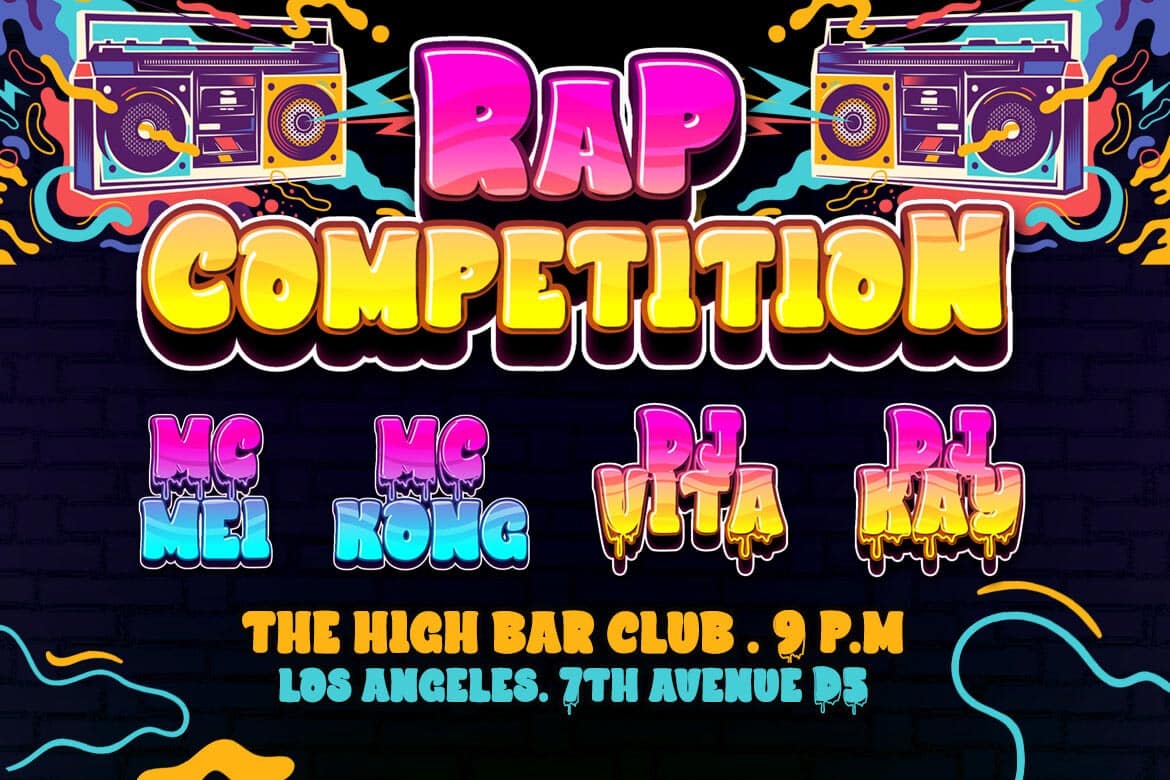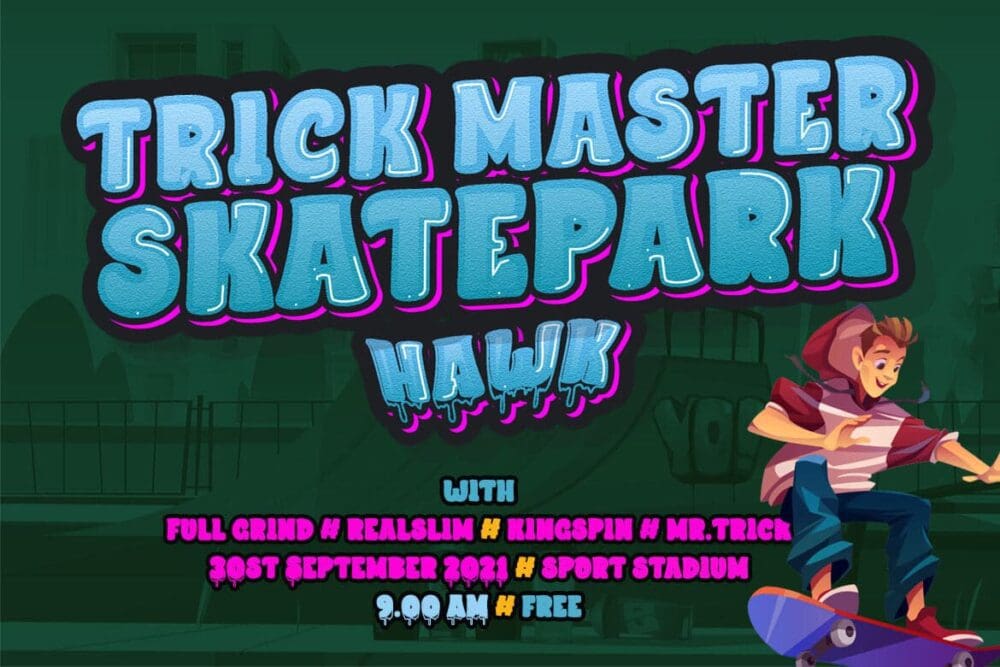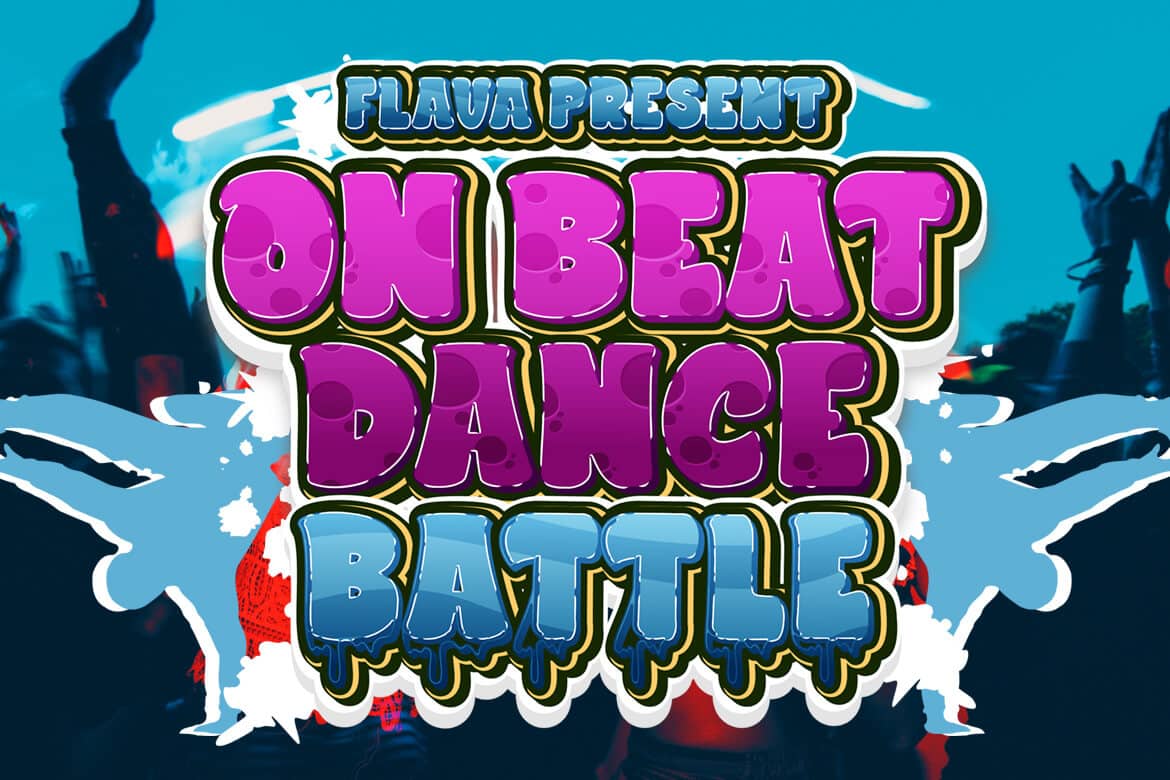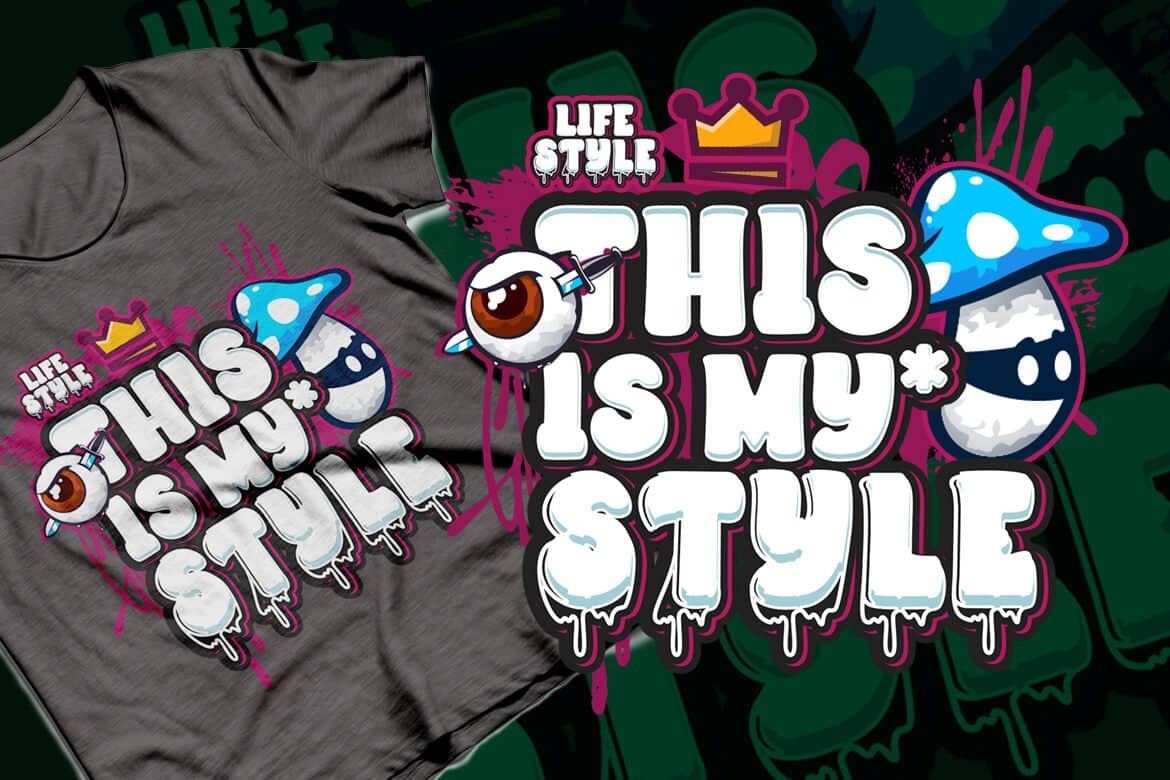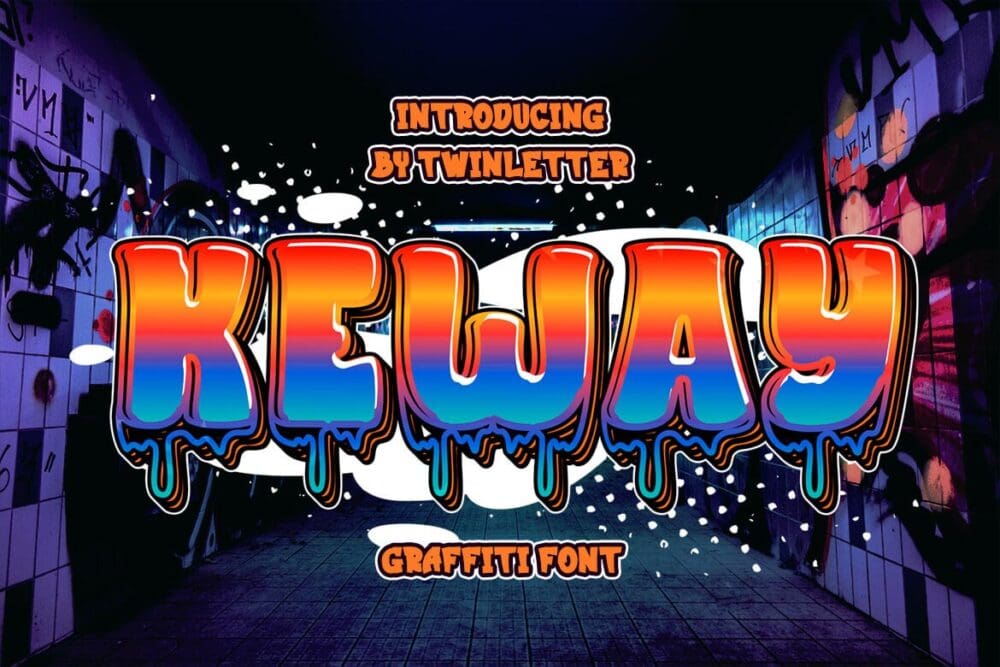
Keway Font
Keway is a graffiti font that prioritizes neatness and harmony while maintaining a distinct personality. There is an option to use capital or lowercase letters, which will make it much easier for you to develop projects that stand out to others. Your project will seem different, elegant, charming, and passionate if you use this font, and everyone who sees it will think it’s a professional, quality, high-quality, and high-class project.